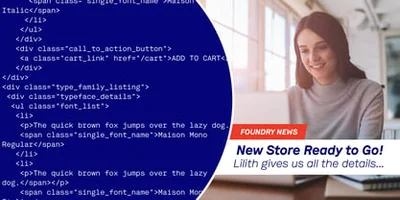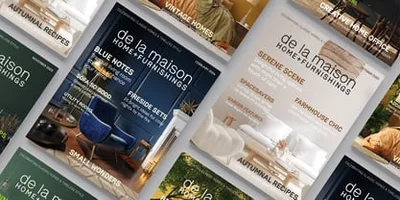
Maison vs Mark Pro
Maison and Mark Pro are both sans-serif typefaces sharing a minimal foundation. Where Maison leans neo-grotesque, Mark Pro brings geometric. Compare which suits your Branding project.
Maison
Mark Pro
Maison
Mark Pro
| Feature | Maison | Mark Pro |
Recommended: Maison
- neo-grotesque design character
- Suited for Editorial and Fashion
Consider: Mark Pro
- geometric design character
- Suited for Corporate and Tech